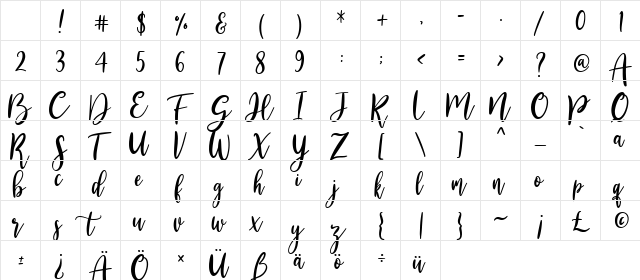
Complete Alesandra Regular glyph index. Displaying only characters natively supported by Alesandra Regular font.
Alesandra is a composed and adaptable typeface that performs quietly and consistently across a wide range of design contexts.